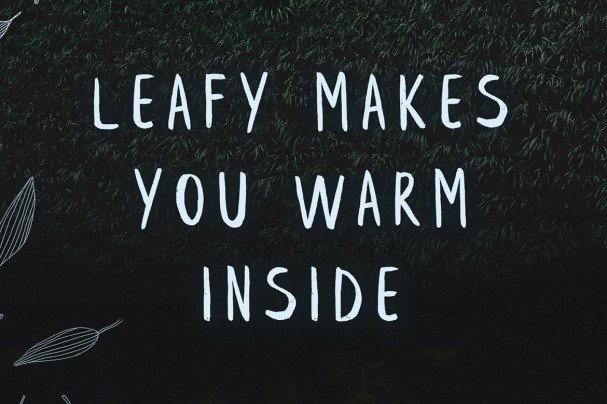
Leafy Brush Font
Leafy Brush Font falls under the category of the handwritten fonts. This typeface shares similarity with the luna.
Style of Leafy Brush Font Free